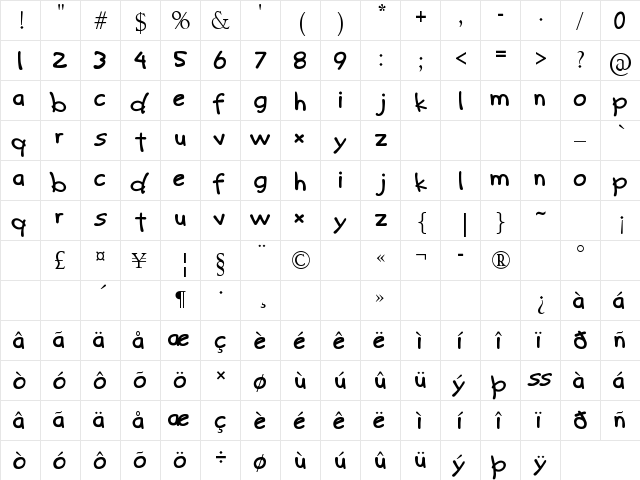
Kids Club Regular
Design Context for Kids Club Typeface
Kids Club has an approachable, lighthearted character — its loose, expressive forms are well-suited to children's content, casual branding, and fun-first design.
Font Pairing: Pairs well with a rounded or humanist sans for body copy, maintaining the friendly tone without relying on Kids Club to carry extended reading.
Pro Tip: Use Kids Club at larger display sizes where its expressive character can land. Pair with a clean, simple sans for body copy to maintain readability.